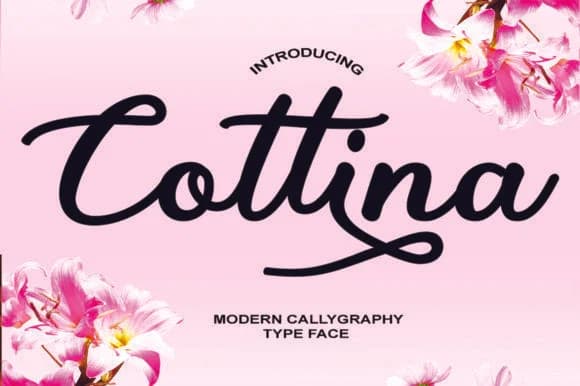
Cottina captures that handwritten quality people respond to emotionally, without the sloppiness that makes designs look amateurish. Bal Studio designed this script to feel personal and warm while staying controlled enough for commercial work. The letterforms flow beautifully, and each character maintains consistent weight so the font reads well whether you're setting it large or small. Built-in character variation keeps text from feeling too uniform, but it doesn't require fussy alternates to look intentional and polished.
Wedding stationery designers often reach for scripts like this because they can carry the entire visual weight of an invitation suite. Boutique cosmetics brands use it for packaging labels where a few words need to feel precious and considered. Custom greeting card illustrators rely on it for display type that speaks without shouting, and craft vendors use it for signage that looks handwritten without requiring actual handwriting. Each application benefits from that balance of personality and legibility.
Pair it with a clean sans-serif (Lato and Open Sans both work well) when you need body text or more than a line or two of copy. The contrast gives layouts room to breathe and helps readers navigate the page. Find Cottina on Creative Fabrica and add it to the fonts you reach for across projects.
Cottina Font is a script font that shines as a display or heading face. Pair it with a clean sans-serif or serif font for body text β the contrast creates a clear hierarchy while the two styles stay balanced and easy to read.
Cottina Font
by Bal Studio